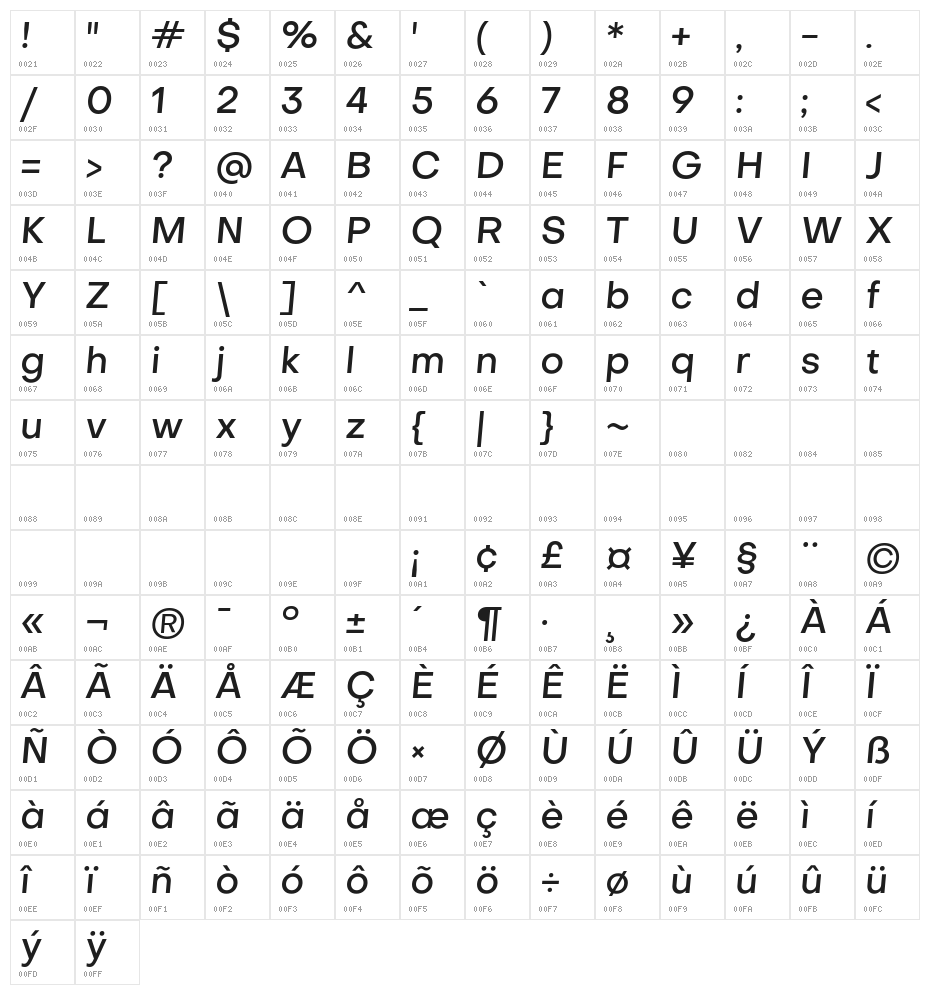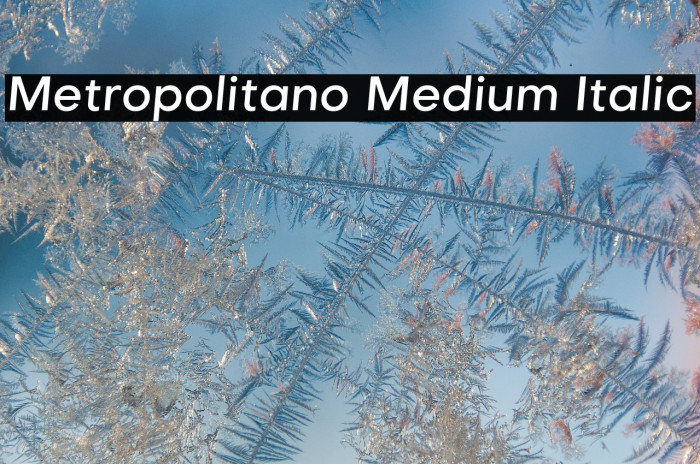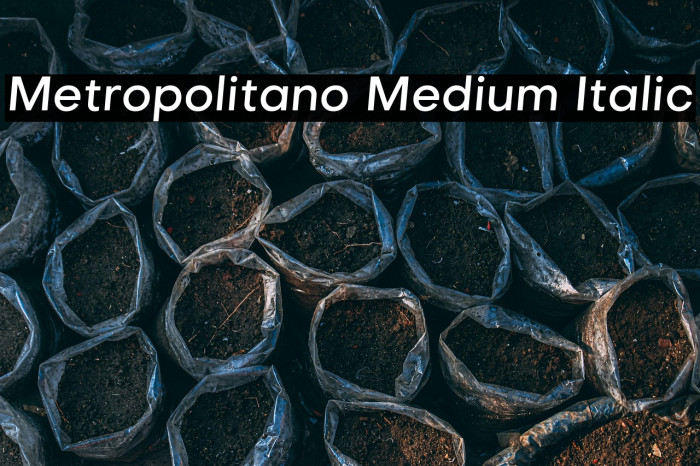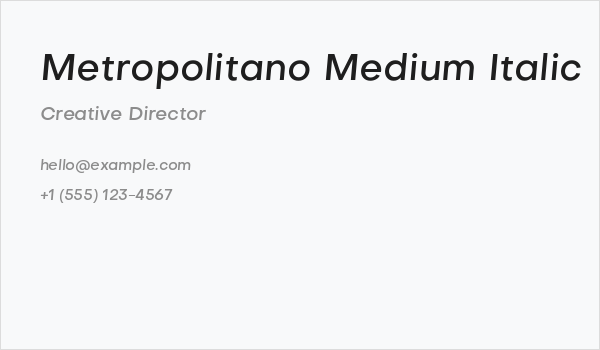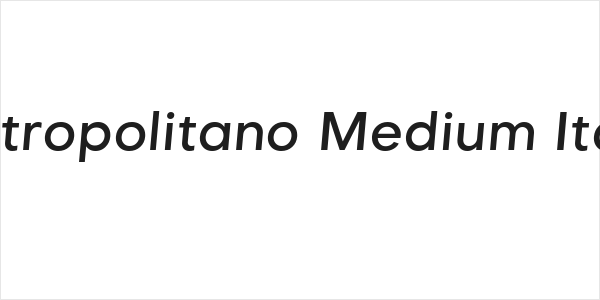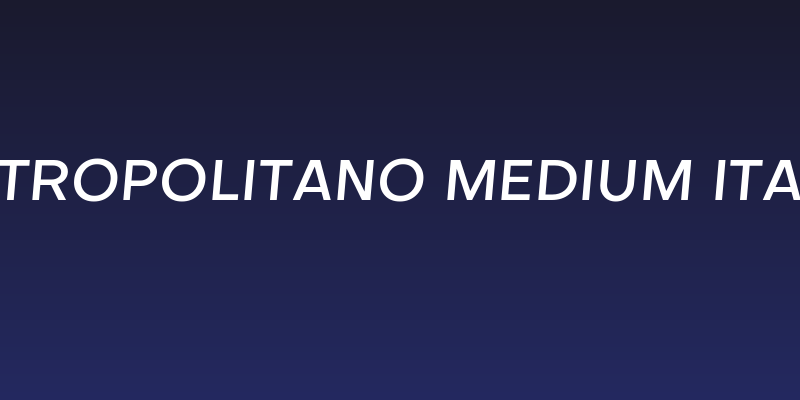
Metropolitano Medium Italic Font
Metropolitano Medium Italic Description
This typeface presents a sleek and modern aesthetic with a slight italic slant, giving it a dynamic and forward-moving appearance. The characters are well-balanced with a medium weight, providing a sense of stability and readability. The sans-serif design ensures a clean and uncluttered look, making it versatile for various applications. The spacing between characters is normal, allowing for clear legibility without appearing too tight or too loose. The font's contrast is low, with consistent stroke thickness throughout, contributing to its modern and streamlined style. It includes a full set of uppercase and lowercase letters, numbers, and a range of special characters, making it suitable for comprehensive text settings.
| Proposed Projects | Ideal for branding, advertising, web design, and editorial layouts where a modern and clean look is desired. |